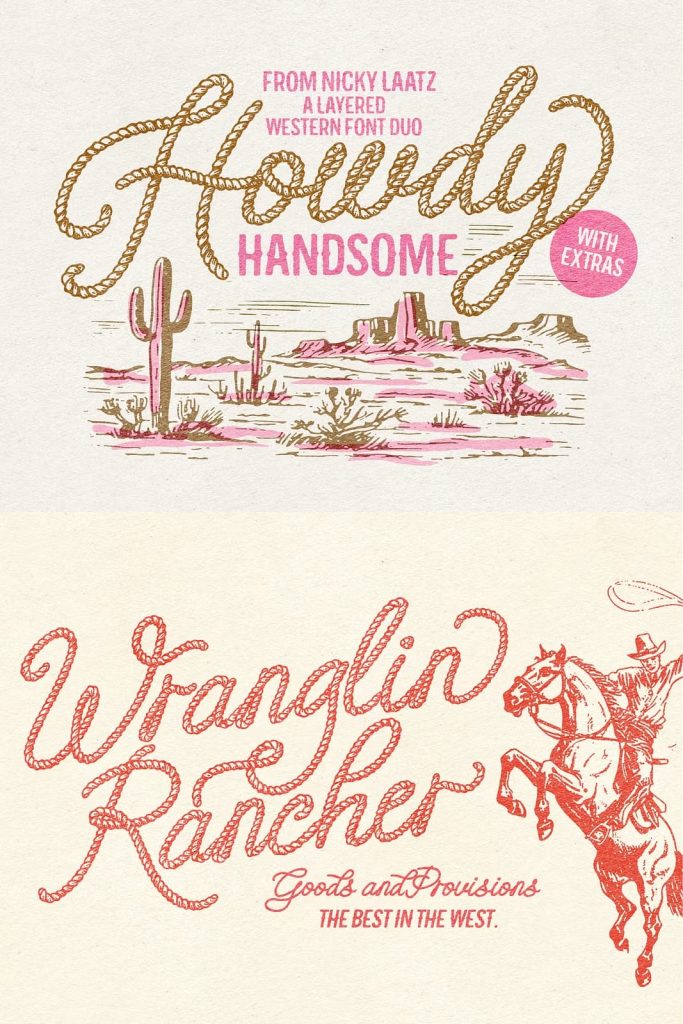
Howdy Handsome is a striking layered Western font duo designed to capture the spirit of the Wild West and the timeless charm of classic typography. Created with precision and bold personality, this typeface combines rustic aesthetics with modern functionality. Whether you’re working on branding, packaging, signage, or digital designs, Howdy Handsome brings your vision to life with an authentic western flair.
Embrace the Spirit of the West
Howdy Handsome pays tribute to traditional Western lettering styles that were once found on old saloon signs, rodeo posters, and rustic storefronts. Each letterform is carefully crafted to convey a sense of rugged confidence and handcrafted artistry. The font’s layered design allows for creative depth and texture, giving your typography a dynamic and eye-catching appeal.
From bold headlines to elegant displays, Howdy Handsome stands out with its distinctive curves, sharp serifs, and balanced proportions. It is more than just a font—it’s a storytelling tool that evokes nostalgia and adventure. Designers can easily mix and match layers to achieve endless combinations of shadows, outlines, and fills, creating unique effects with minimal effort.
A Layered Duo for Creative Freedom
This font duo consists of two complementary styles that work seamlessly together: a solid base and a decorative layered version. You can use them independently for clean, minimal designs, or stack them to create dimensional typography full of character. The versatility of this layered system means you can experiment with colors, gradients, and textures to suit any creative direction.
Howdy Handsome was made with usability in mind. Its smooth curves and clean outlines ensure that the font performs beautifully in both print and digital formats. Whether you are designing a vintage brand logo, a retro poster, or a themed event invitation, Howdy Handsome adapts effortlessly to your style.
Perfect for Designers, Creators, and Brands
If your project calls for bold typography with personality, Howdy Handsome is your go-to choice. It shines in branding materials, apparel prints, packaging design, advertising, and even social media graphics. The font’s layered format opens up limitless creative potential—add a touch of metallic gold for a premium look, or use textured brushes for a rustic handcrafted vibe.
Professional designers appreciate Howdy Handsome for its versatility, readability, and well-balanced letterforms. Its powerful design language helps convey strength, heritage, and authenticity—qualities that resonate deeply with audiences looking for genuine and memorable visual experiences.
Bring Your Designs to Life
Howdy Handsome is more than just typography—it’s a design experience that blends tradition with creativity. With its detailed layers and vintage-inspired design, this Western font duo encourages bold expression and artistic exploration. It brings your titles, branding, and marketing materials to life with a confident Western spirit that feels both nostalgic and fresh.